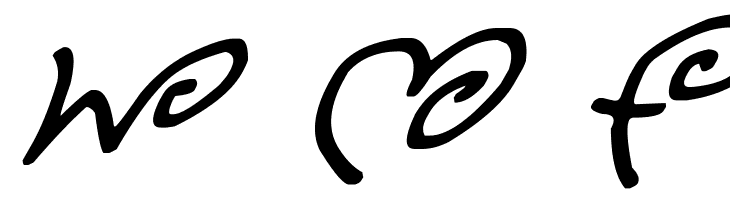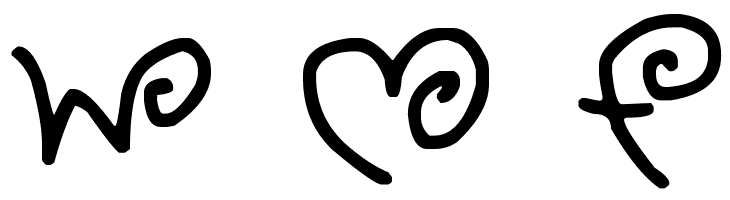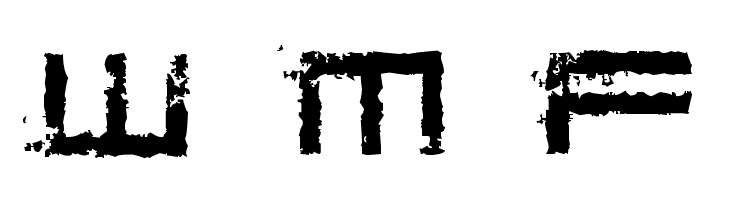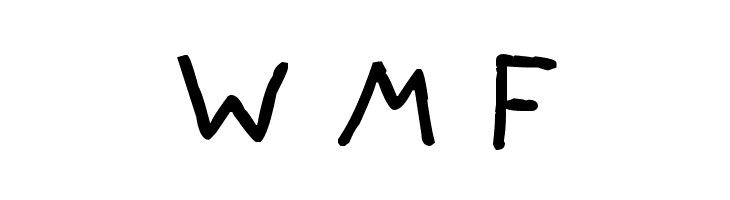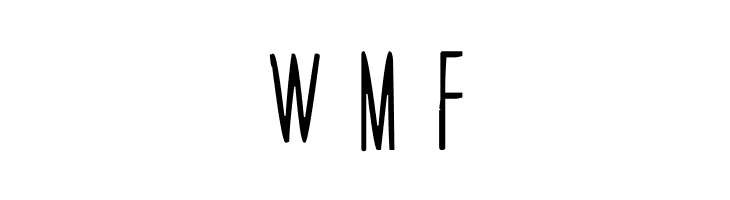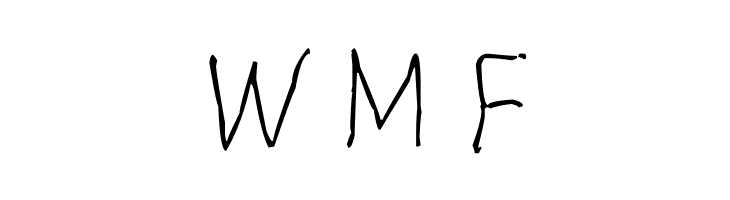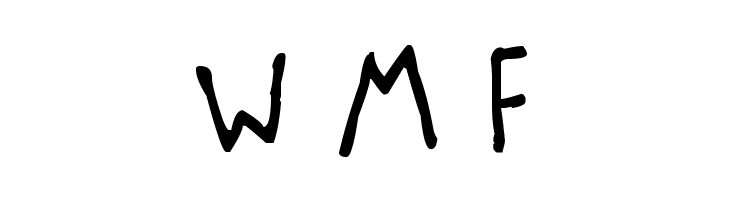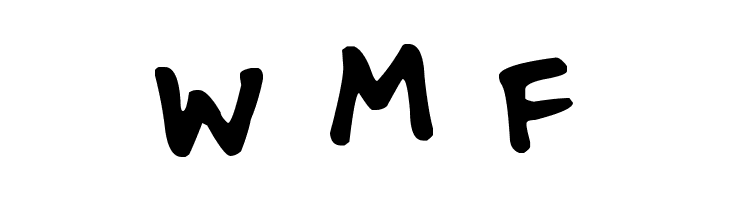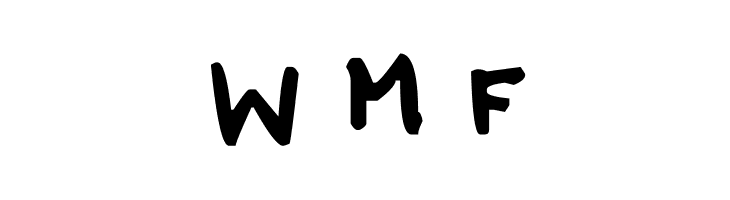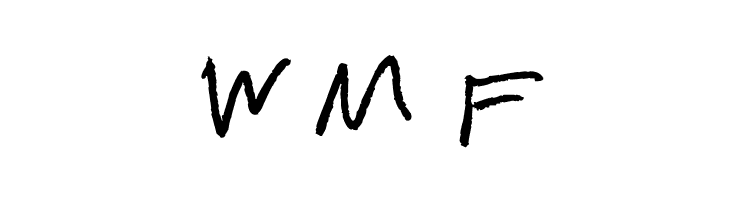
A distressed, ghostly font with an eerie, decayed texture.
A playful, curly italic font with dynamic and whimsical letterforms.
A whimsical, curly font with a playful, hand-drawn style.
A bold, italic font with a textured, hand-drawn appearance.
A bold, rugged font with an organic, ink-blot appearance.
A distressed, futuristic font with a bold, industrial aesthetic.
A distressed, italicized font with a futuristic, mechanical style.
A casual, handwritten font with an organic and lively appearance.
A playful, handwritten font with irregular strokes and a casual vibe.
A bold, italic, hand-drawn font with textured strokes and a dynamic style.
A sketch-like, hand-drawn font with dynamic and textured strokes.
A playful, textured handwritten font with a casual, informal style.
A fluid and dynamic handwritten font with slanted, connected letters.
A playful, hand-drawn font with a casual and friendly style.
A playful, casual handwritten font with irregular strokes.
A playful, handwritten font with a bold and casual style.
A casual, handwritten font with a playful and approachable style.
A playful, handwritten font with uneven strokes and a whimsical style.
A casual, handwritten font with an organic, personal style.
A playful, handwritten font with bold, irregular strokes and a casual style.
A playful, handwritten-style font with bold, smooth strokes and a casual vibe.
A playful, handwritten-style font with bold, rounded characters.
A playful, bold handwritten font with dynamic strokes.
A bold, ink-splatter style font with dynamic, hand-drawn strokes.
A bold, ink-splattered font with a chaotic and artistic style.
A bold, brush-style font with a hand-painted, artistic appearance.
A bold, brush-style font with an expressive and handcrafted appearance.
An ornate and decorative font with elaborate swirls and flourishes.
A hand-drawn, charcoal-style font with an organic and playful appearance.
A casual, handwritten font with uneven, dynamic strokes.
A playful, handwritten font with a casual and informal style.
A bold, handwritten font with a playful and casual style.
A playful, casual handwritten font with uneven strokes and a lively feel.